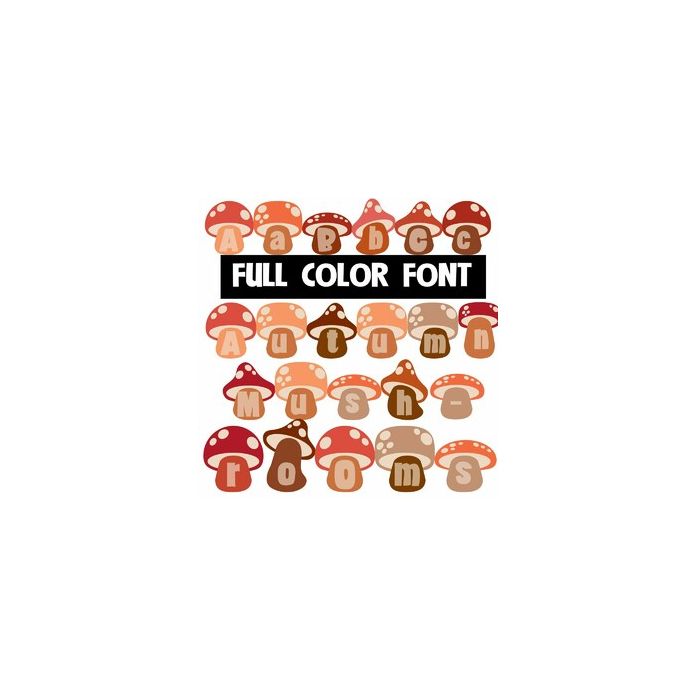
This full-color font features autumn-colored lettering throughout. This font works best for titles, displays, posters and more. Please note color fonts will show as black in non compatible programs. This font type is compatible with Silhouette Studio.